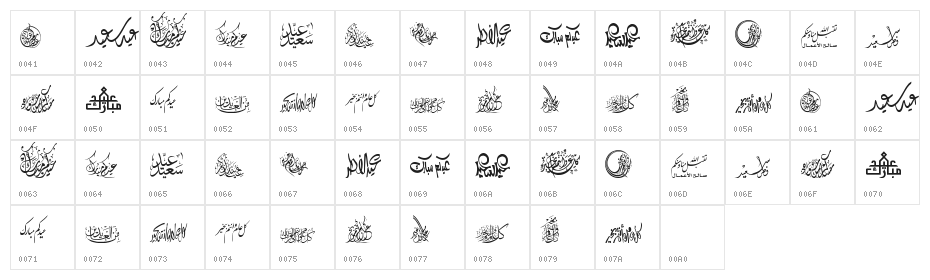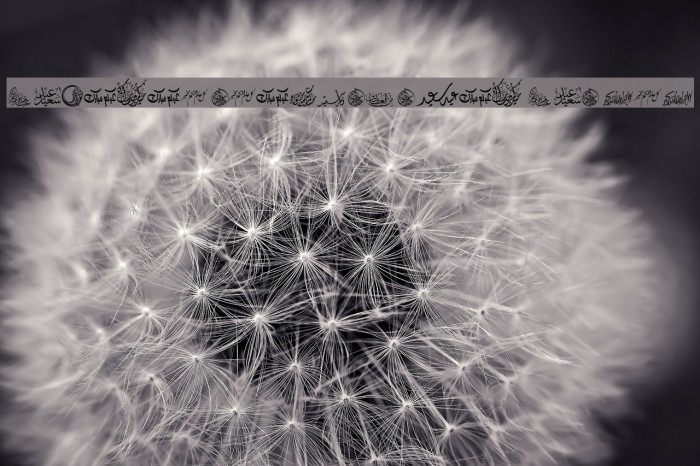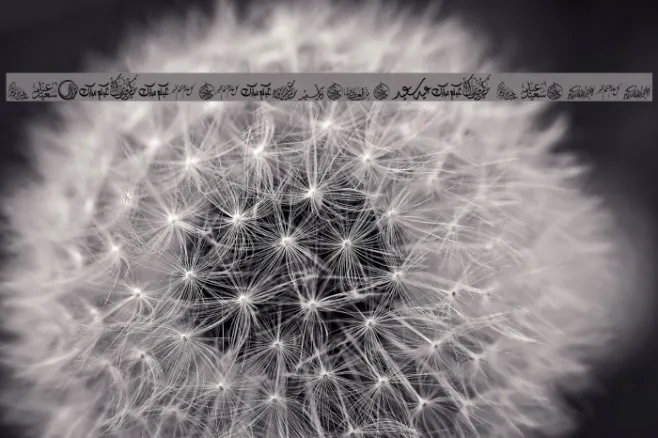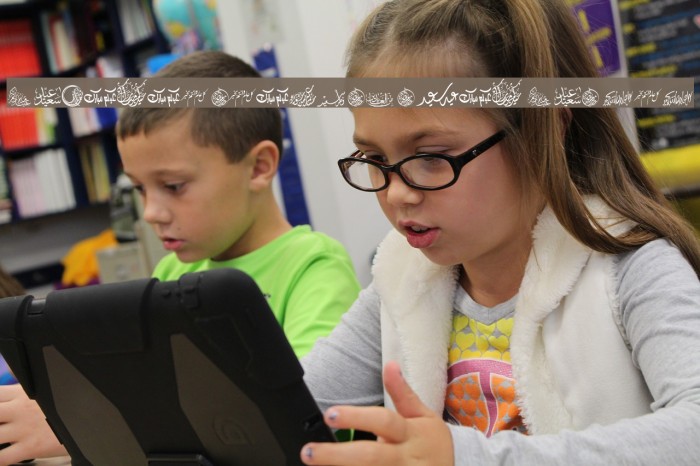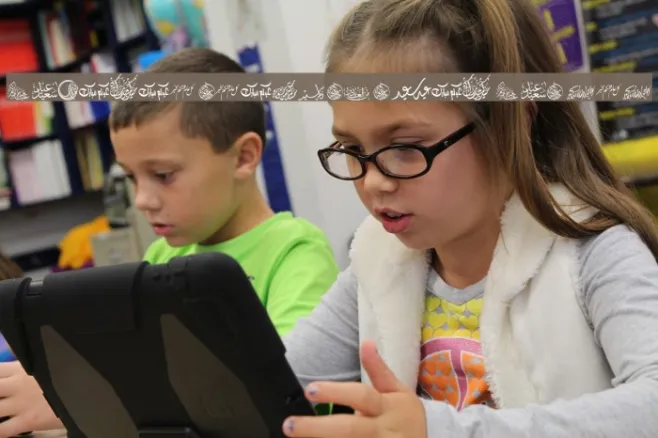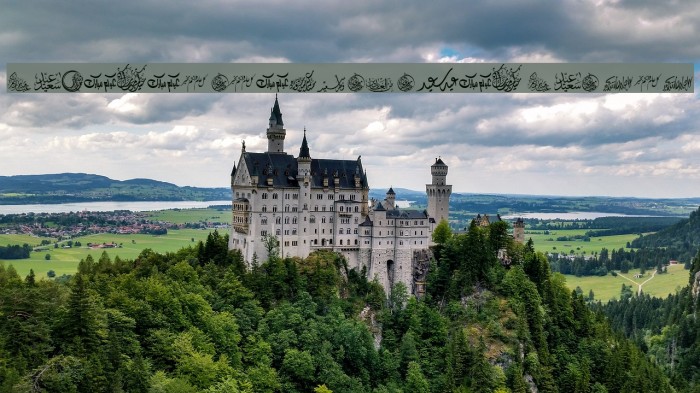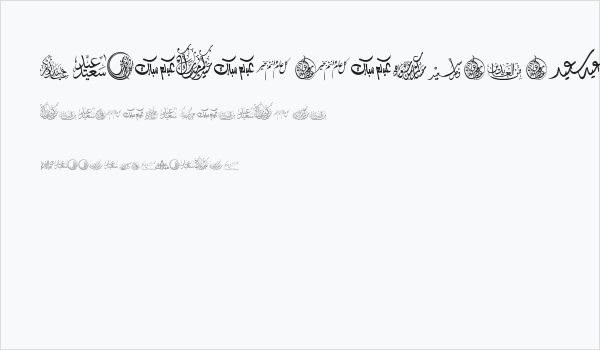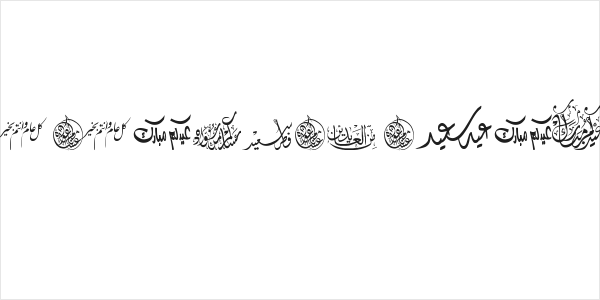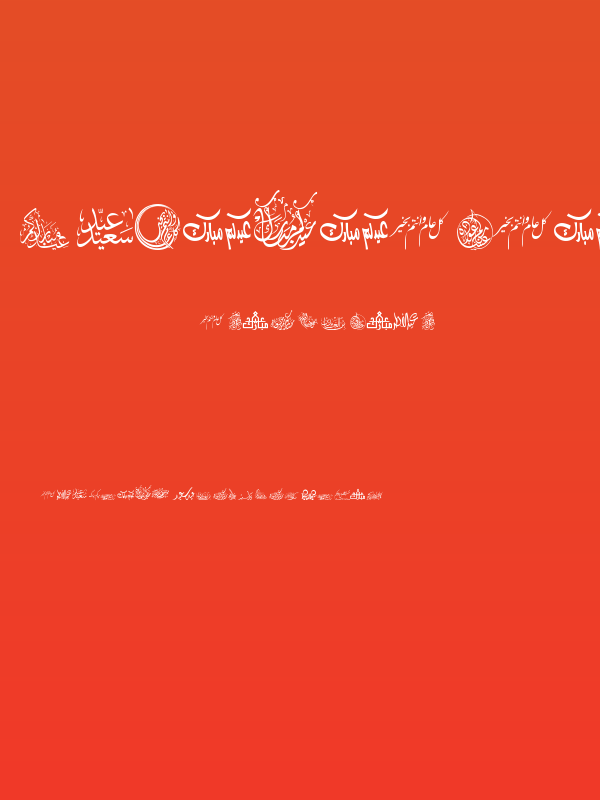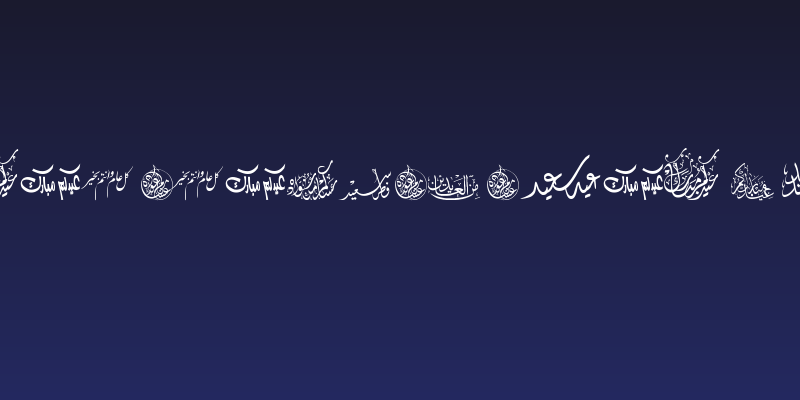
Felicitation_Arabic Feasts Font
Felicitation_Arabic Feasts Description
This font embodies the elegance and intricacy of traditional Arabic calligraphy, featuring ornate and flowing letterforms that are both artistic and culturally rich. The characters are meticulously crafted with a high level of detail, showcasing a blend of thick and thin strokes that create a dynamic visual rhythm. The font's decorative elements and flourishes add a sense of grandeur and sophistication, making it ideal for ceremonial and festive contexts. Its aesthetic appeal is enhanced by the harmonious balance between the letters, which are closely spaced yet distinct, allowing for a seamless flow of text.
| Use Case | Decorative headings, Invitations, Art pieces |
| Proposed Projects | Ideal for use in cultural and religious event invitations, certificates, greeting cards, and decorative art pieces. |